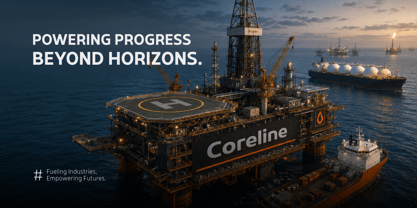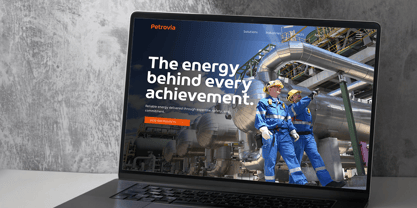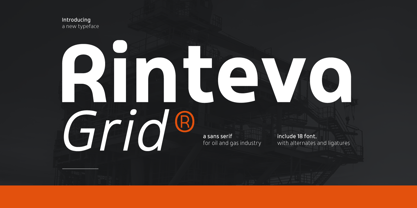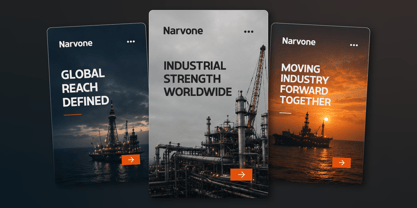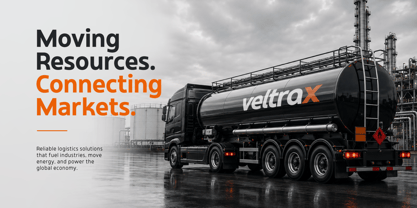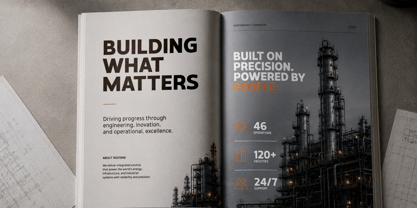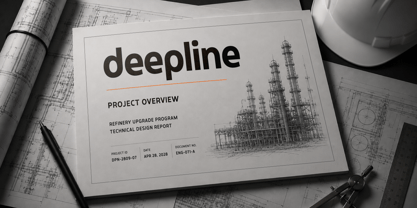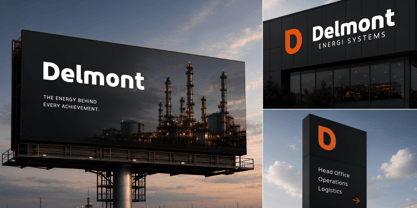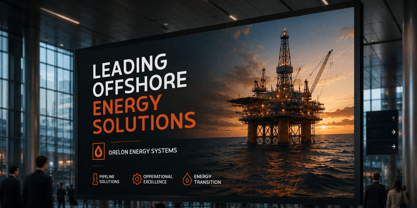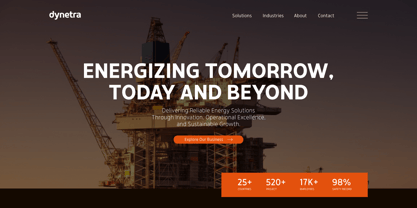
Rinteva Grid
The Rinteva Grid Font Family was designed by Rozikan and published by Twinletter. Rinteva Grid contains 18 styles and family package options. More about this family
Rinteva Grid is a modern sans serif typeface crafted to deliver a strong, professional, and industrial-driven visual identity. Featuring bold letterforms, stable proportions, and clean construction, it is perfectly suited for energy companies, oil and gas corporations, engineering firms, manufacturing businesses, logistics providers, and industrial technology brands.
Inspired by the world of engineering and heavy industry, Rinteva Grid communicates reliability, strength, and operational excellence. It performs exceptionally well in headlines, corporate branding, company websites, annual reports, presentations, industrial packaging, and marketing materials that require a confident and authoritative appearance.
Whether you're building a global energy brand or creating a modern industrial identity, Rinteva Grid provides the professional typography needed to establish trust, credibility, and long-term brand recognition.